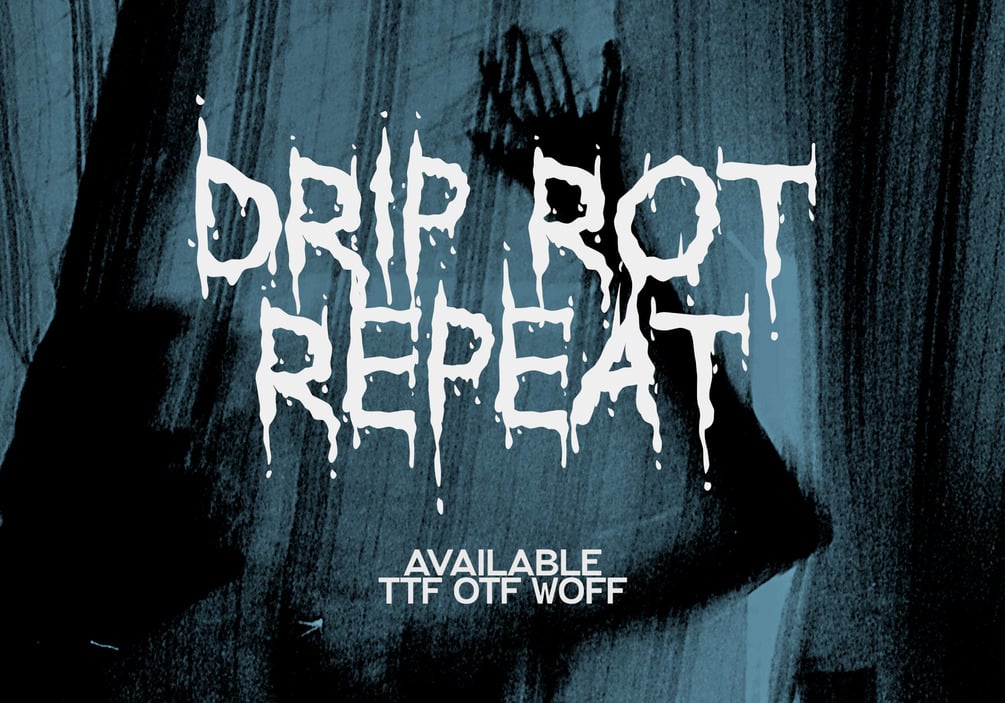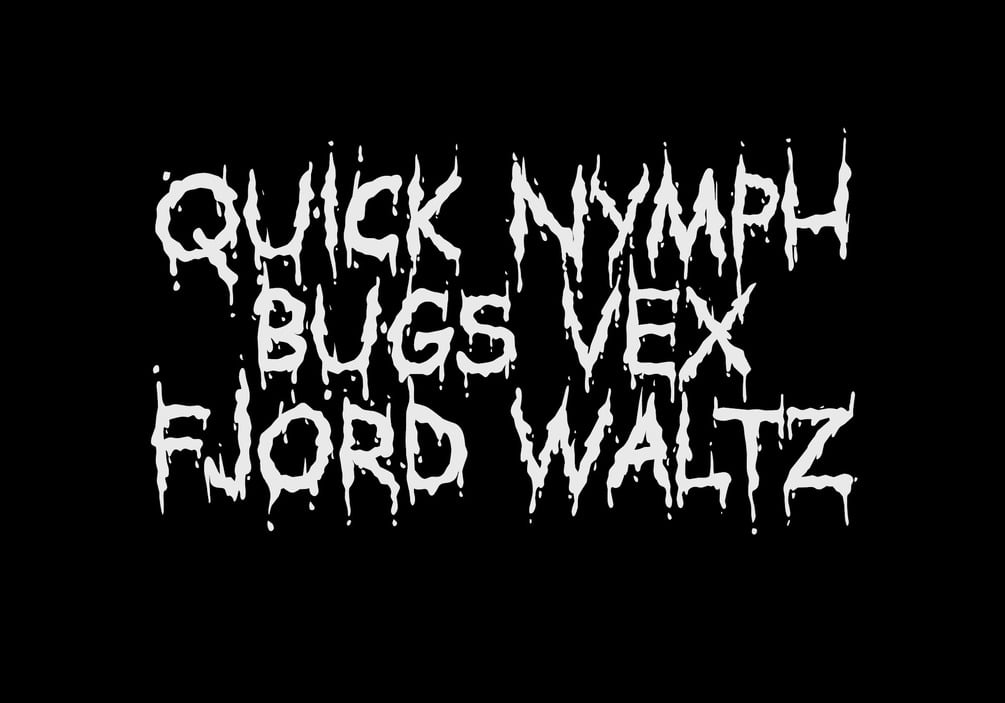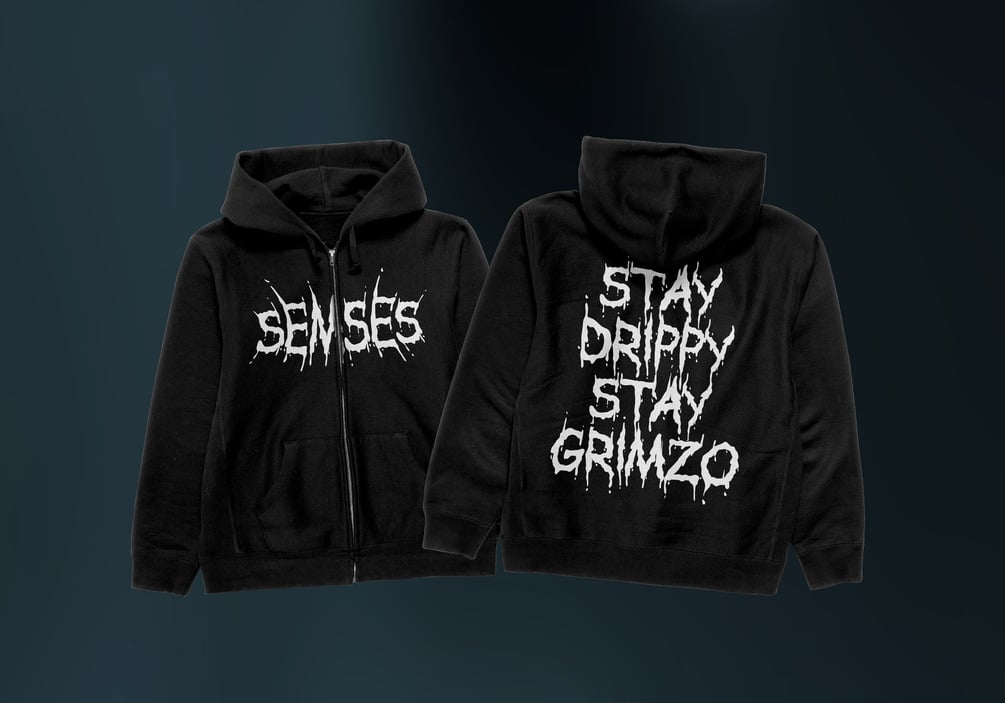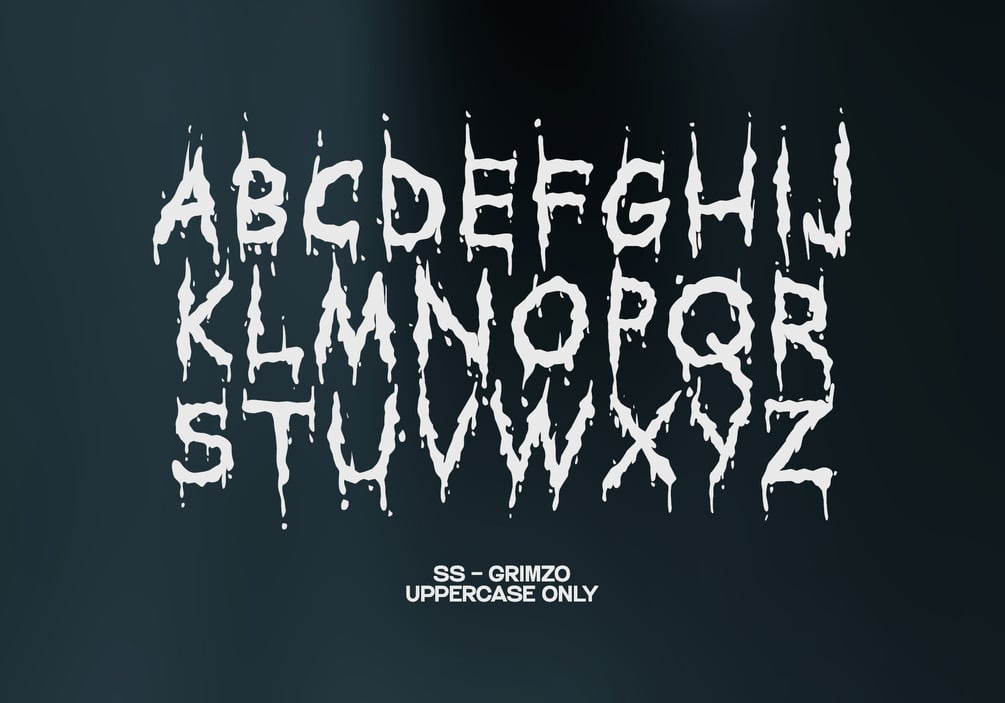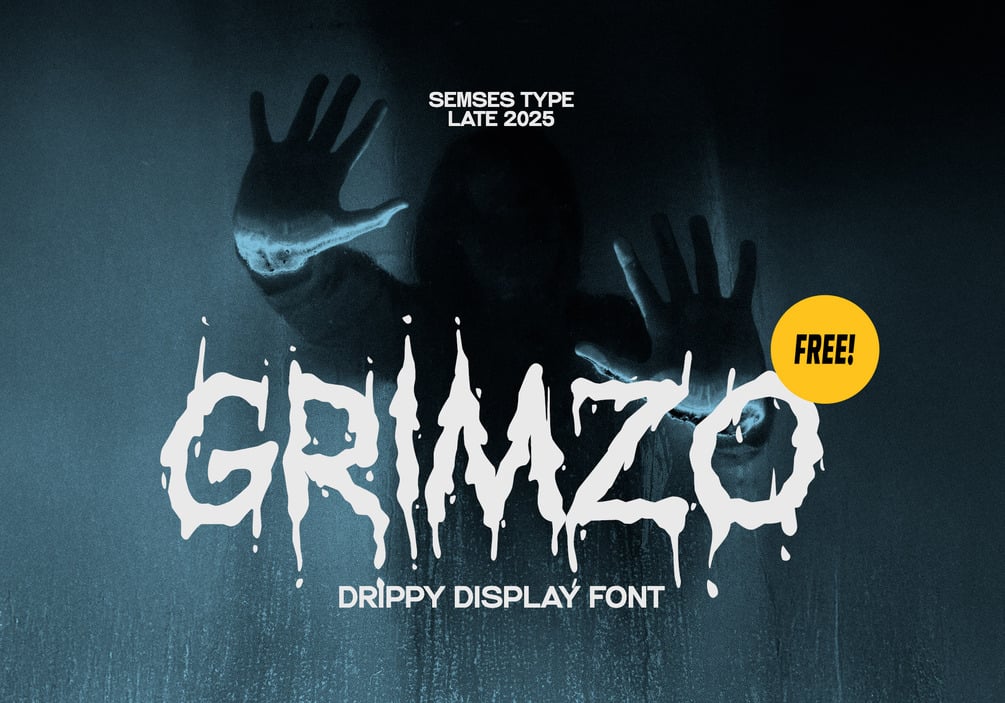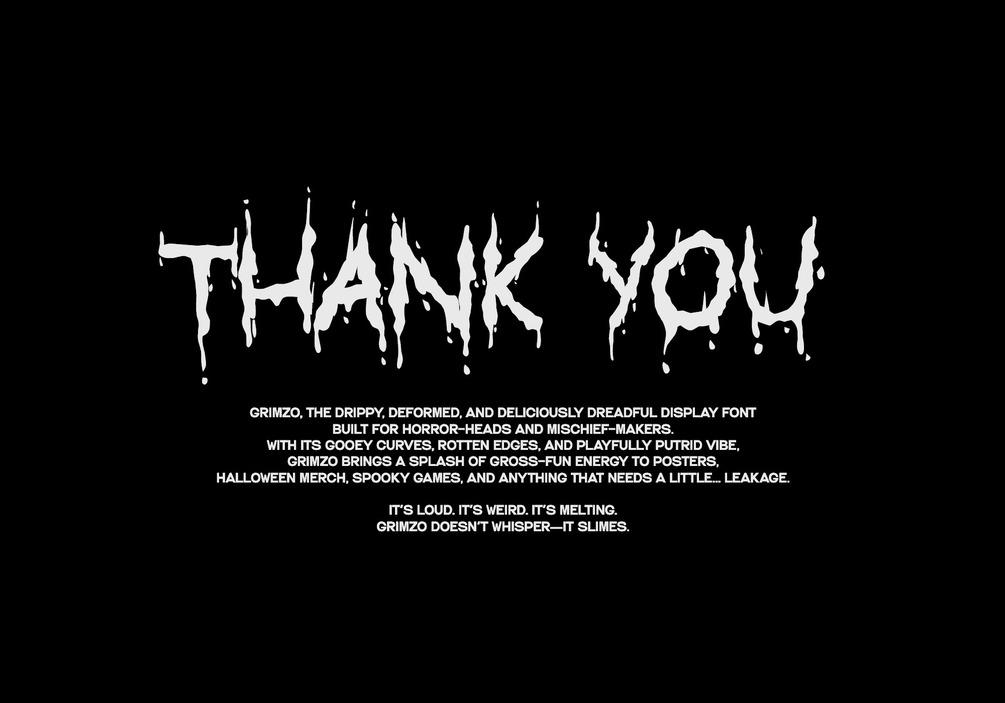
SS-Grimzo - Display Font
Meet Grimzo, the drippy, deformed, and deliciously dreadful display font built for horror-heads and mischief-makers. With its gooey curves, rotten edges, and playfully putrid vibe, Grimzo brings a splash of gross-fun energy to posters, Halloween merch, spooky games, and anything that needs a little… leakage.
It’s loud. It’s weird. It’s melting. Grimzo doesn’t whisper—it slimes.
Including ( 26 Glyph ) Uppercase Only